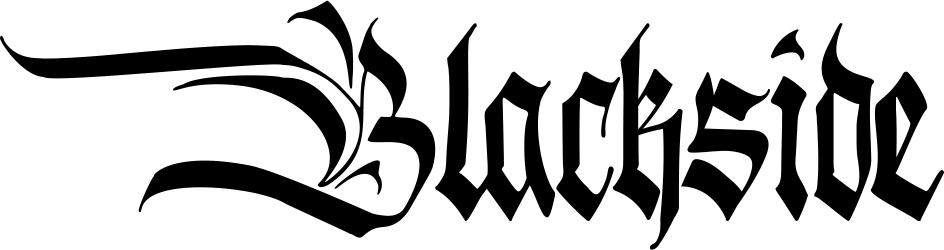
Blackside Font
You want to create a professional-looking brand that stands out from the competition, but you don’t know how to start. Blackside is a unique and authentic blackletter font perfect for any branding project. Whether you’re looking to create a logo, print shirts, or anything else, this masculine tattoo font will give you the edge you need to create a truly unique brand.